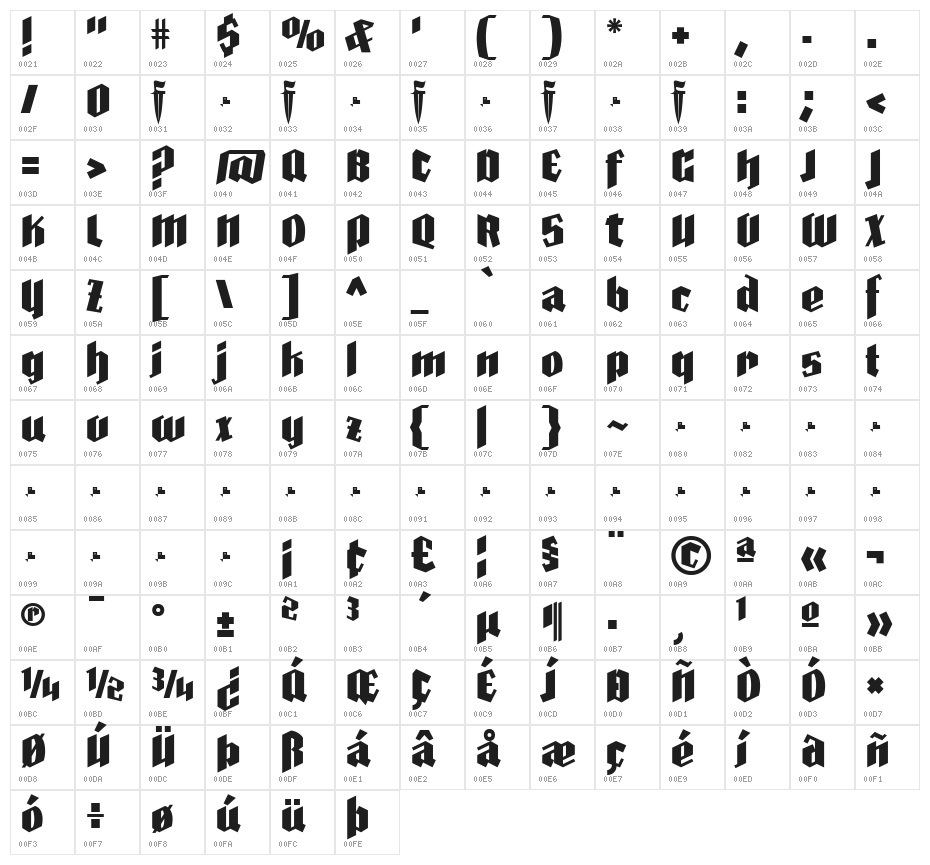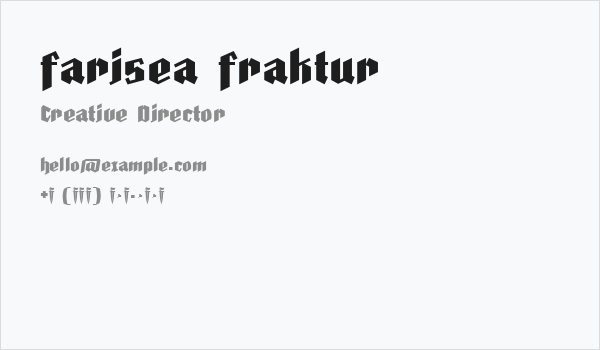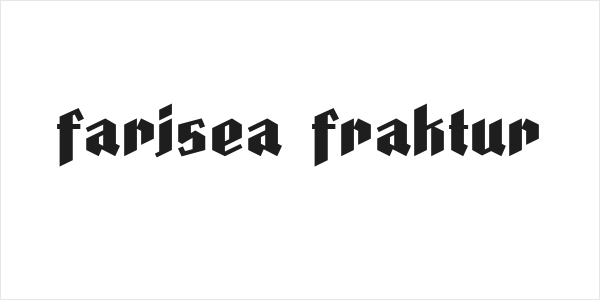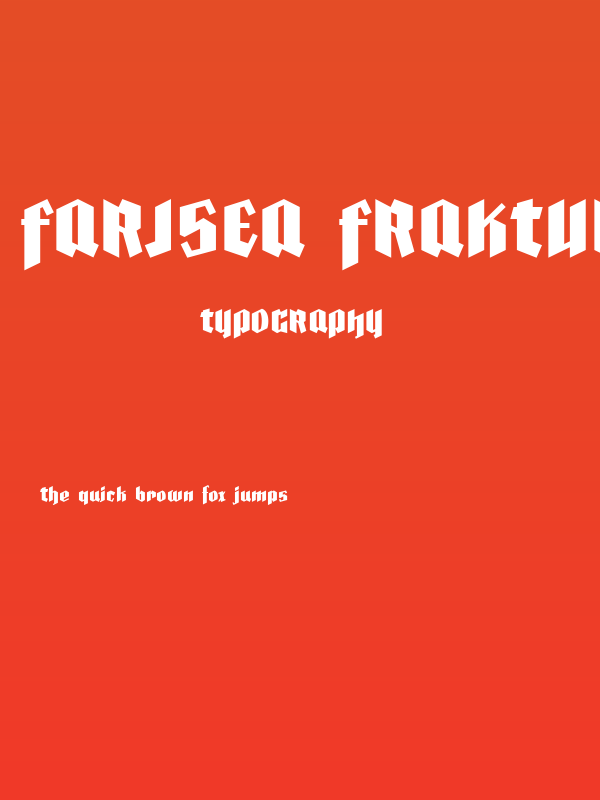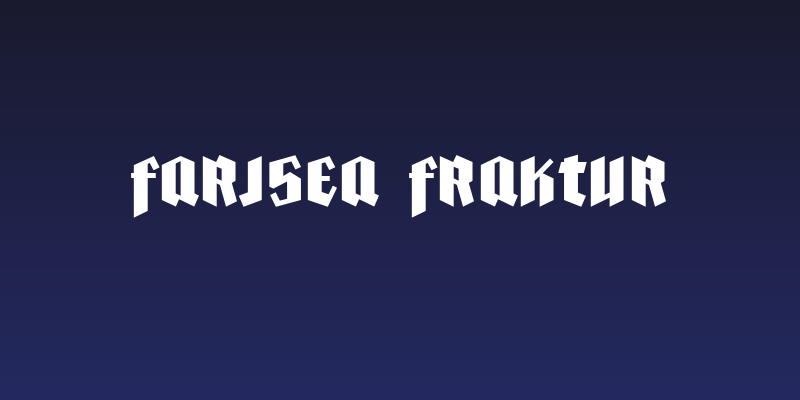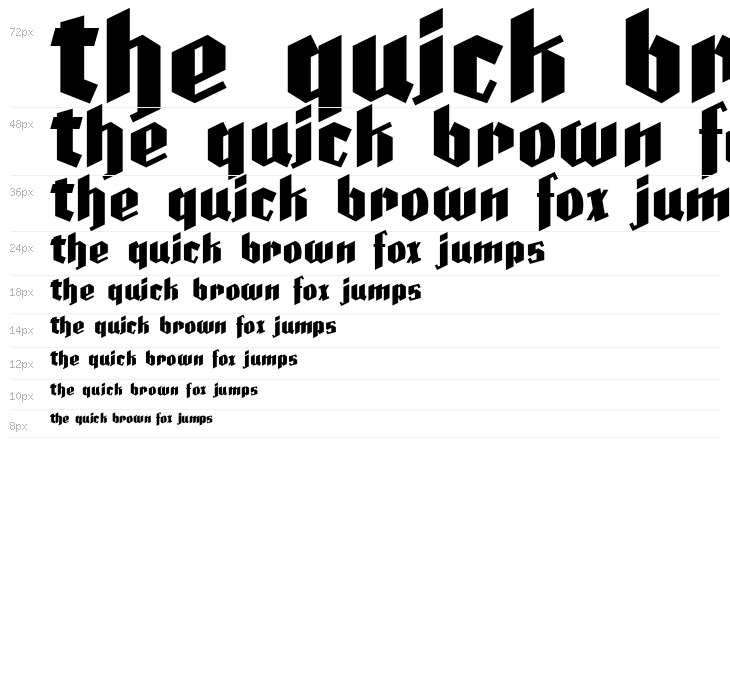
Farisea Fraktur Font
Farisea Fraktur Description
This font features a bold and dramatic style, reminiscent of traditional Blackletter typefaces. The characters are sharply angular with thick strokes and pointed serifs, giving it a strong, authoritative presence. The uppercase letters are particularly striking, with a gothic influence that is both historic and ornamental. The lowercase letters maintain this aesthetic, with unique flourishes that enhance the overall medieval feel. The numerals and special characters are equally bold, ensuring consistency across all text elements. This font is ideal for creating a sense of tradition and formality.
| Use Case | Headlines, Logos, Decorative text |
| Proposed Projects | Ideal for historical documents, event posters, book covers, and branding that requires a traditional or gothic aesthetic. |